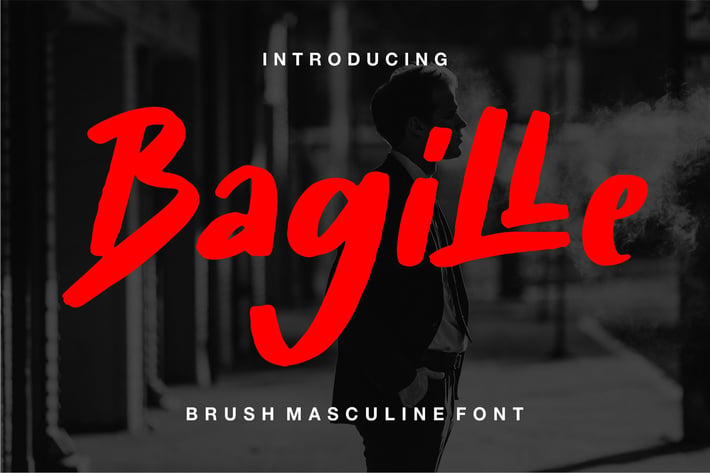
Bagille | Brush Masculine Font
Bagille | Brush Masculine Font with a calligraphy style, So beautiful on invitation like greeting cards, branding materials, business cards, quotes, posters, and more!